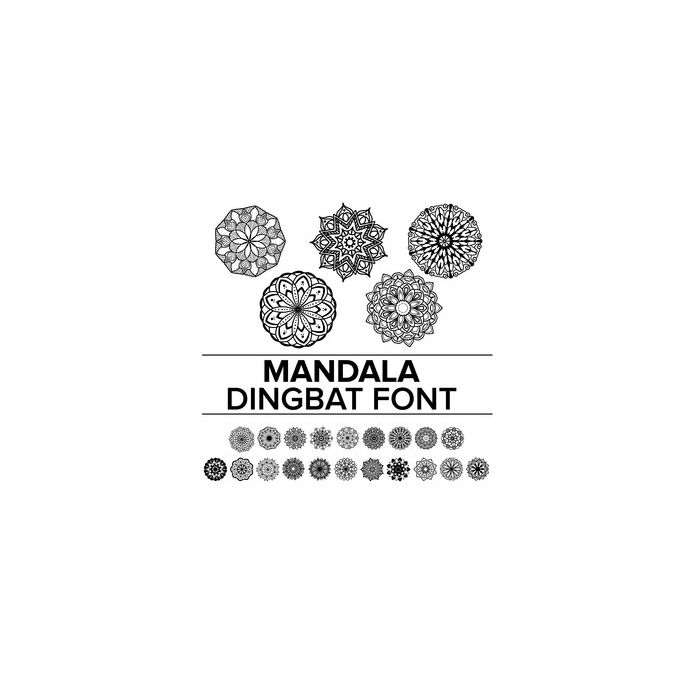
These mandala inspired dingbat shapes comes in OTF format. Each uppercase and lowercase letter corresponds to a unique, hand drawn mandala design. Many of these designs are very intricate. Please ensure you use a sharp blade and the correct settings.